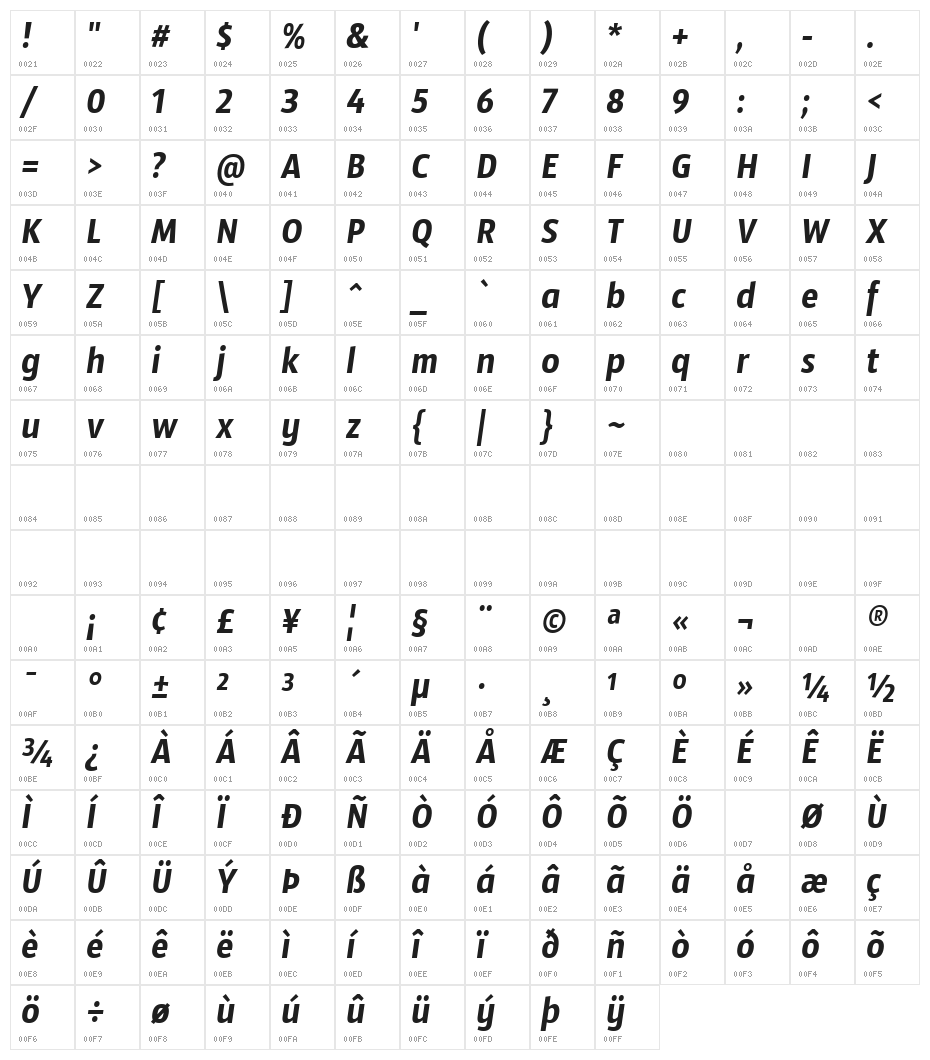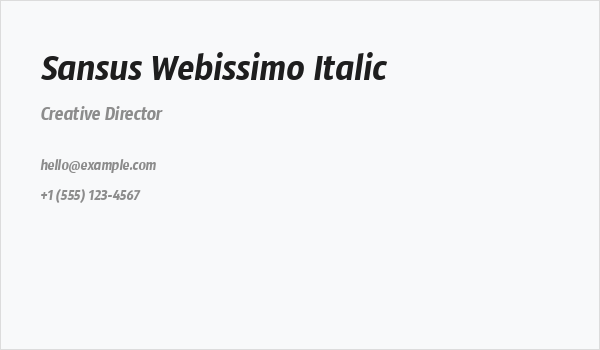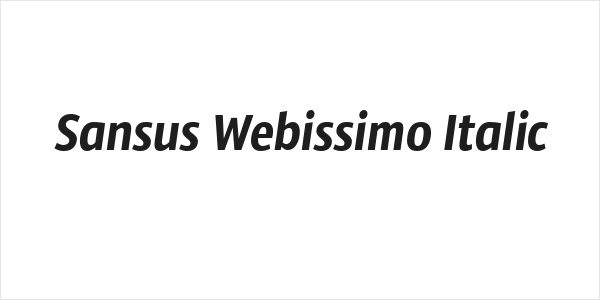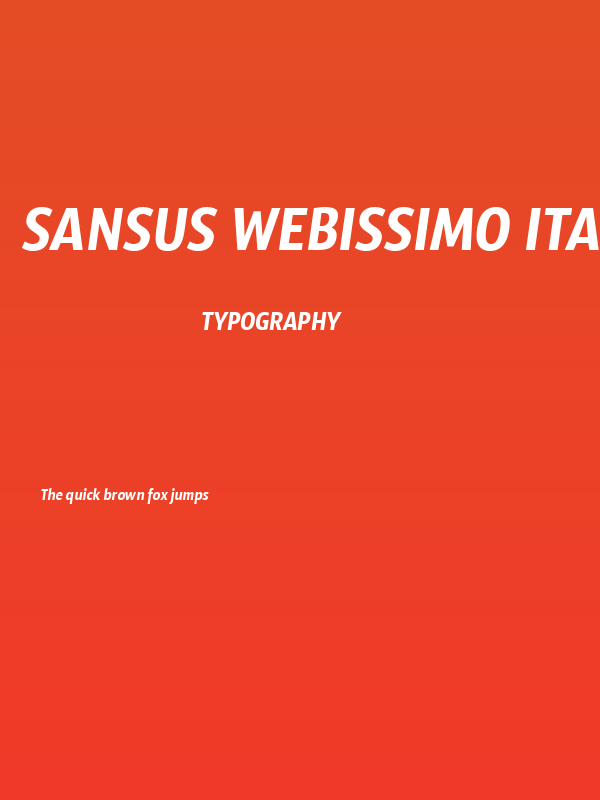
Sansus Webissimo Italic Font
Sansus Webissimo Italic Description
This font features a modern, italicized sans-serif style with a sleek and dynamic appearance. The characters are slightly slanted, giving a sense of motion and fluidity. It maintains a clean and professional look, suitable for various digital and print applications. The uppercase and lowercase letters are well-proportioned, with consistent stroke widths that offer a balanced and harmonious visual experience. The numerals and special characters are designed to complement the overall style, ensuring readability and aesthetic appeal. This font is versatile, making it ideal for both formal and informal contexts.
| Proposed Projects | Ideal for branding, advertising, digital content, and editorial design. |